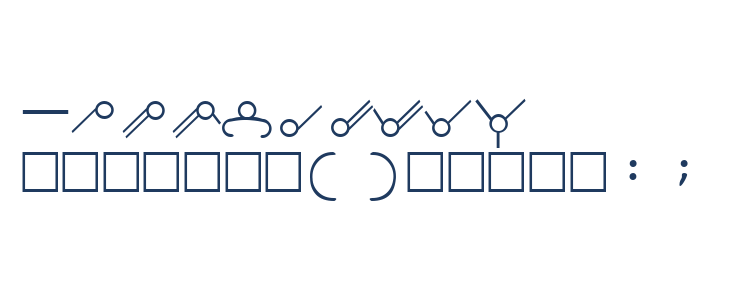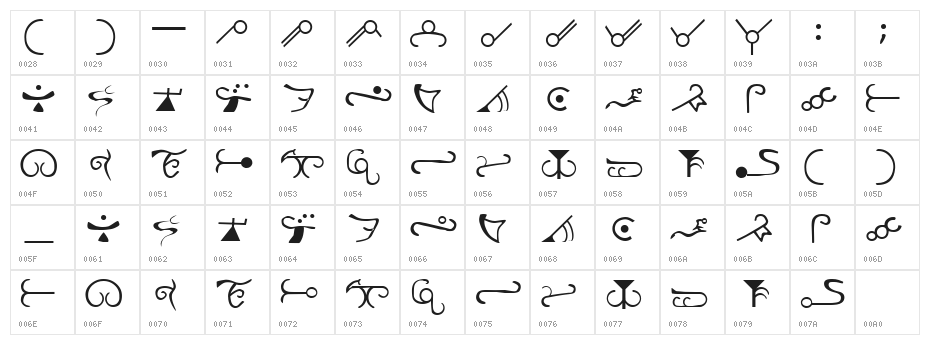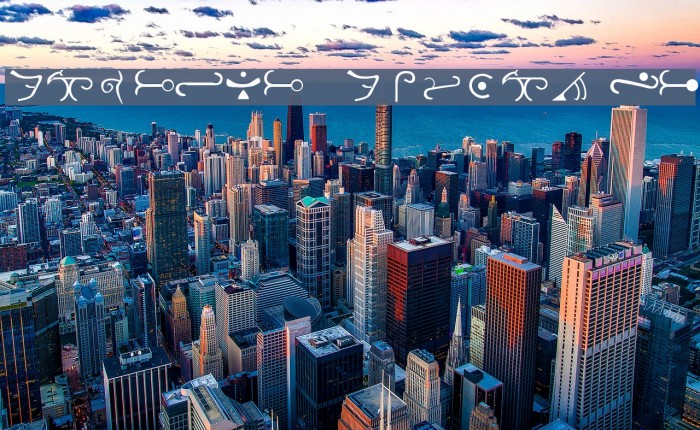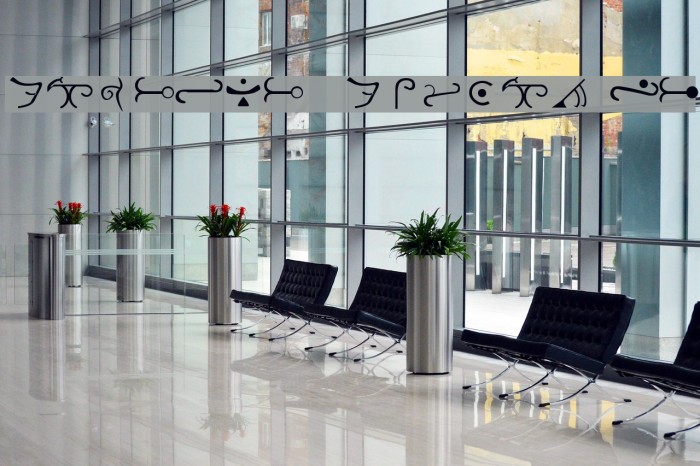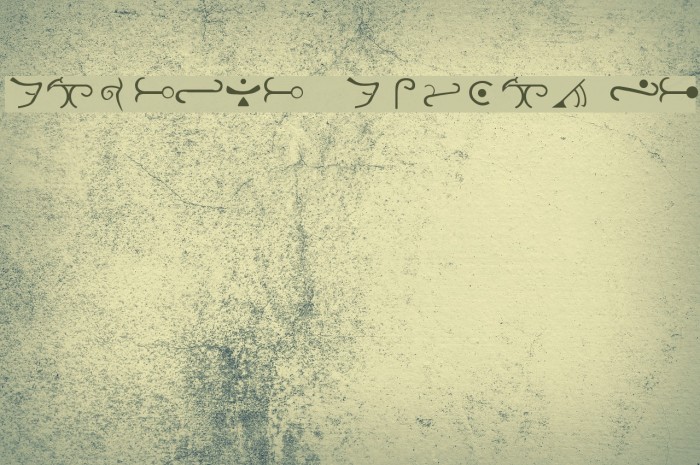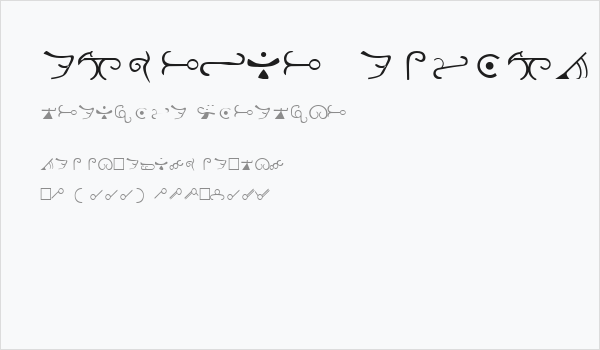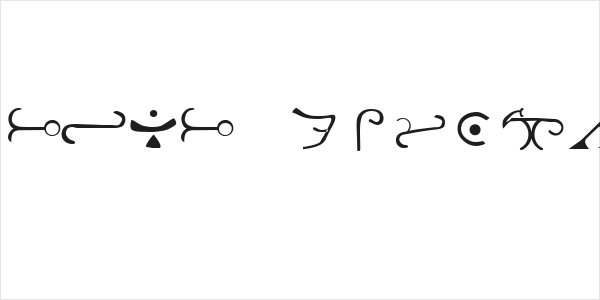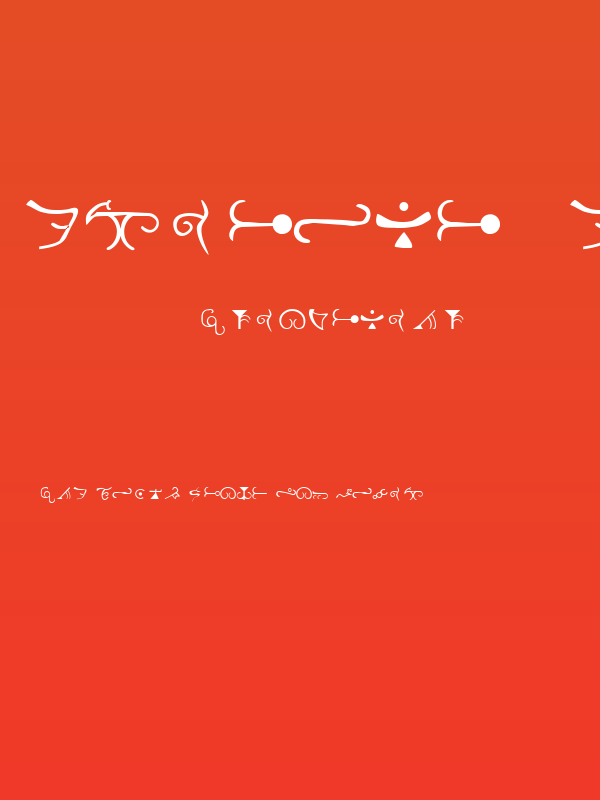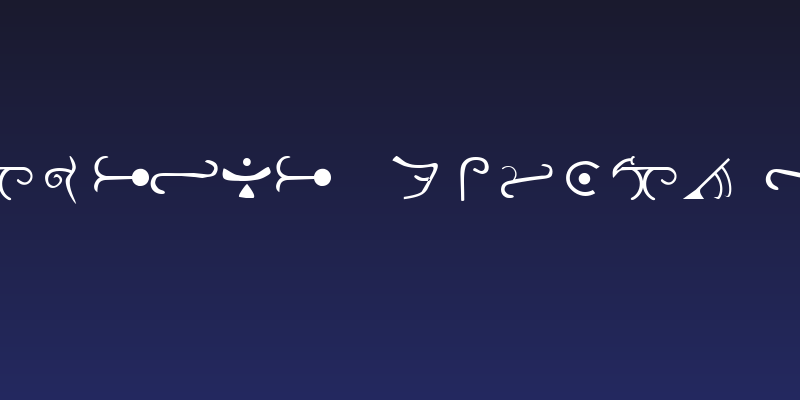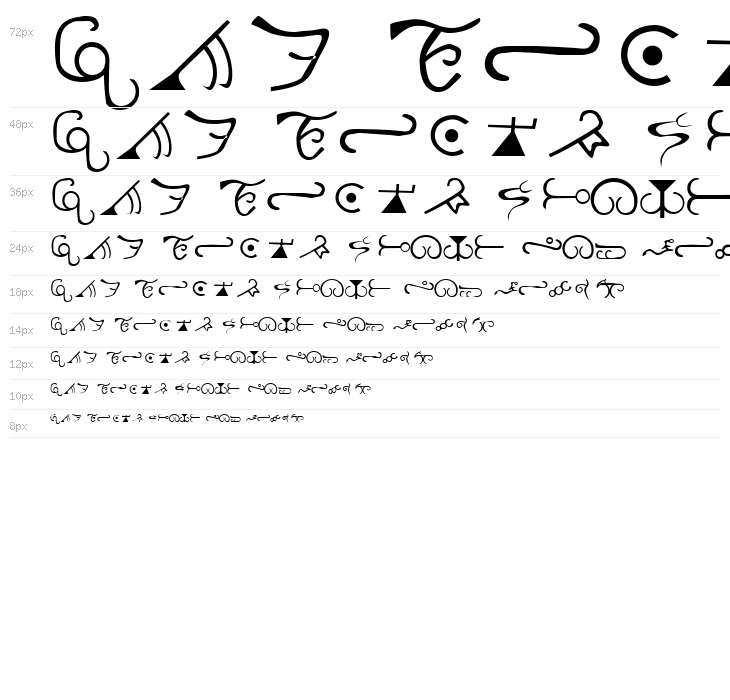
Espruar Elvish FR Font
Espruar Elvish FR Description
This font features an intricate and decorative style, reminiscent of ancient scripts and fantasy languages. The characters are composed of elegant curves, loops, and dots, creating a mystical and enchanting appearance. Each letter is unique, with a flowing design that suggests a sense of movement and fluidity. The overall aesthetic is highly ornamental, making it suitable for creative and imaginative projects. The font's distinctiveness lies in its ability to evoke a sense of mystery and otherworldliness, perfect for fantasy-themed designs.
Use CaseLogos, Headlines, Artistic projects
Proposed ProjectsIdeal for fantasy book covers, game design, themed event invitations, and artistic posters.